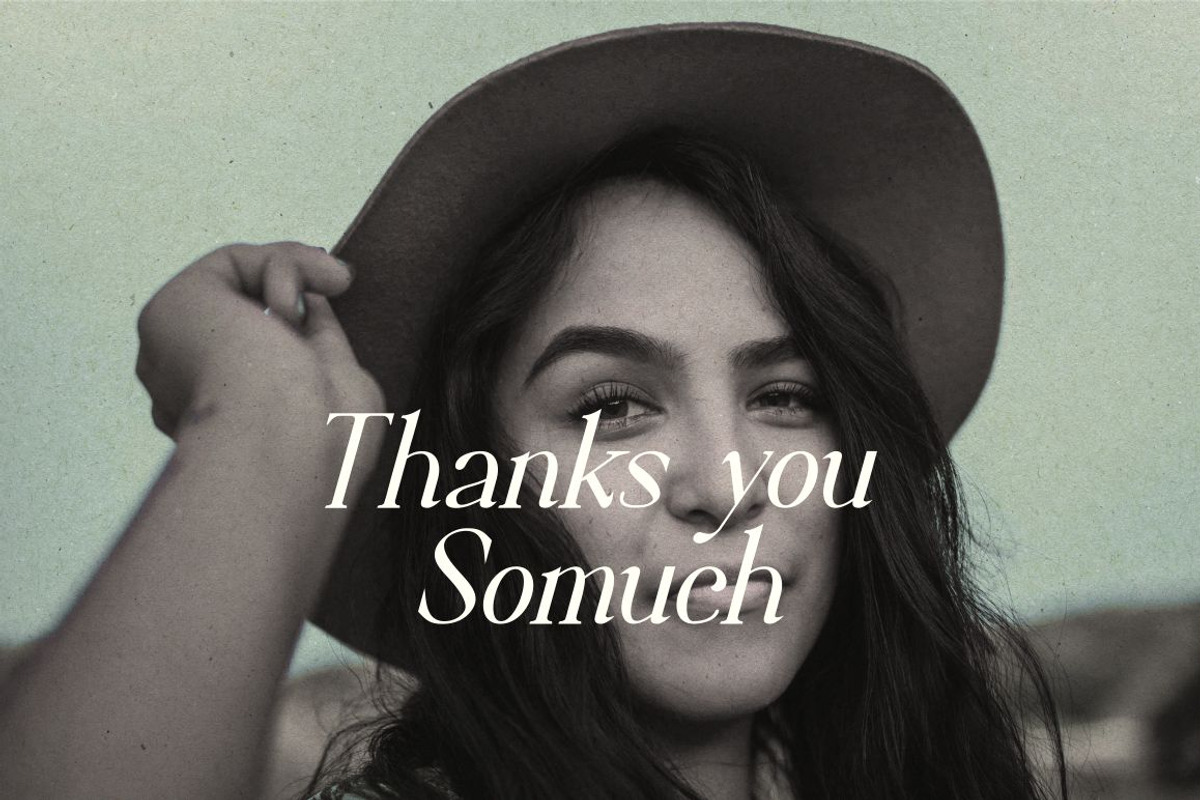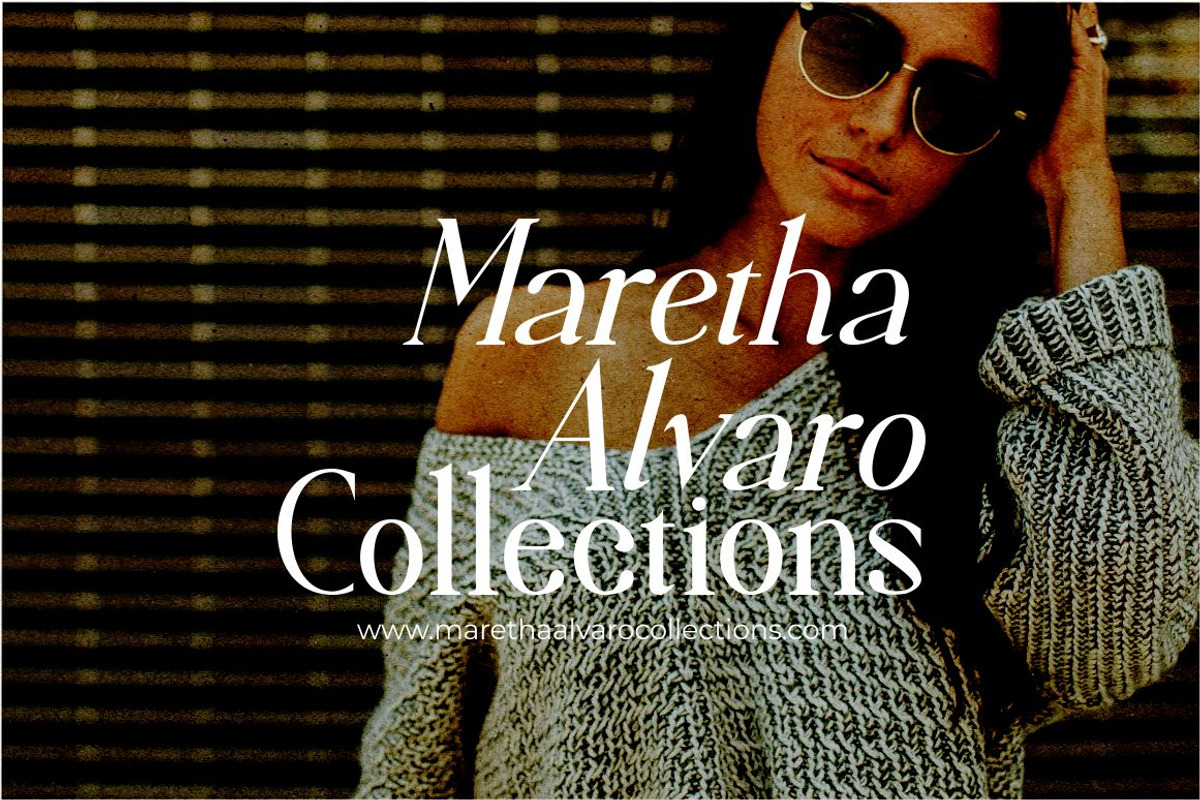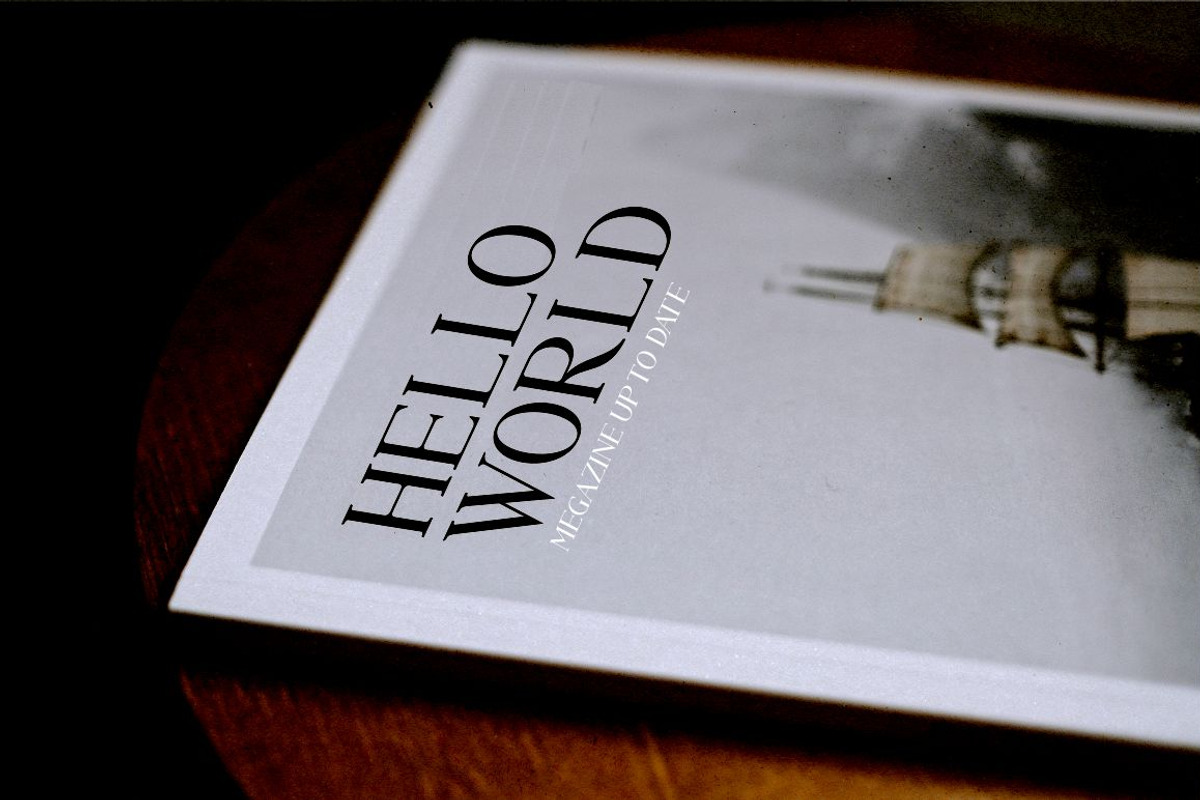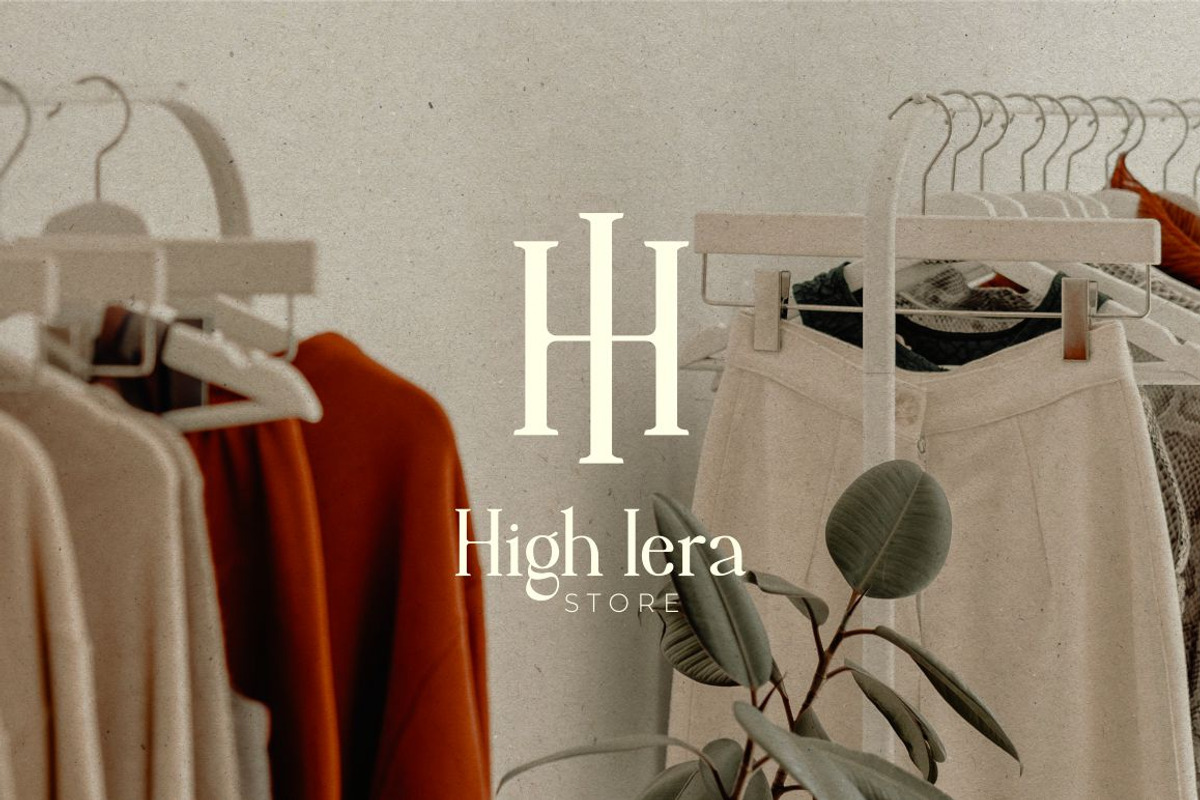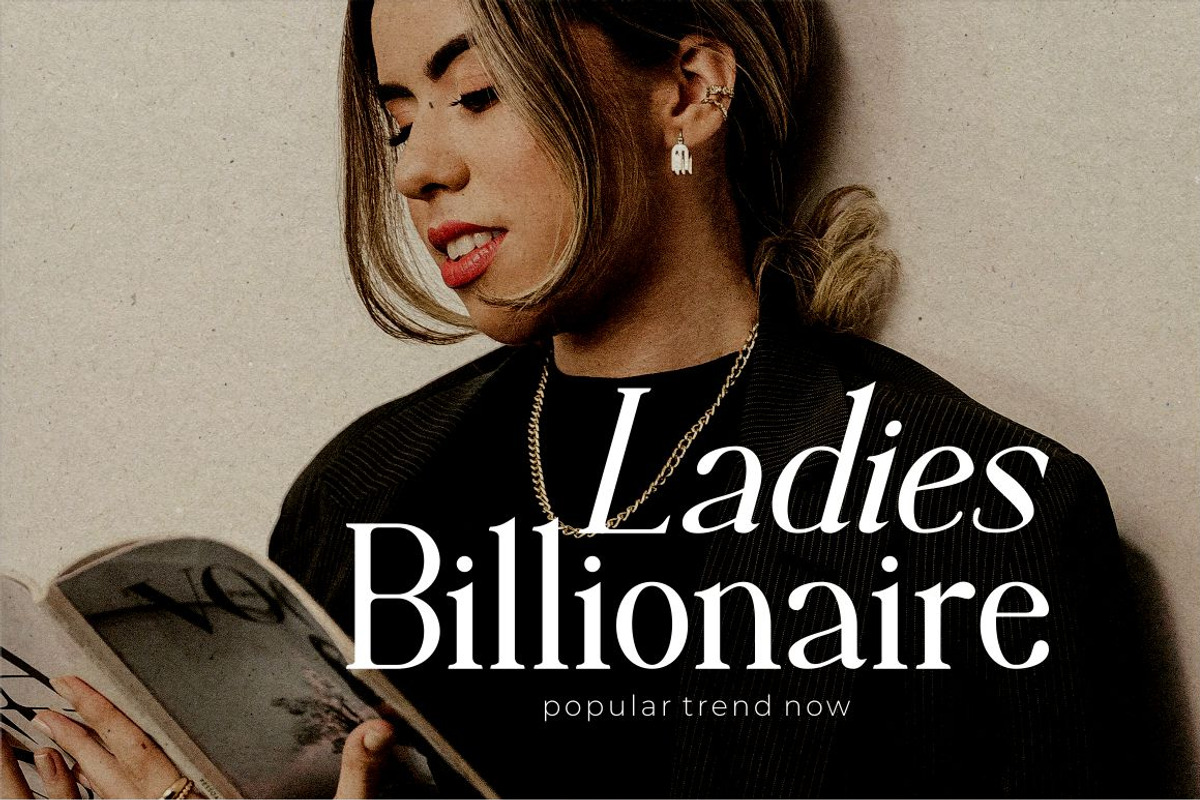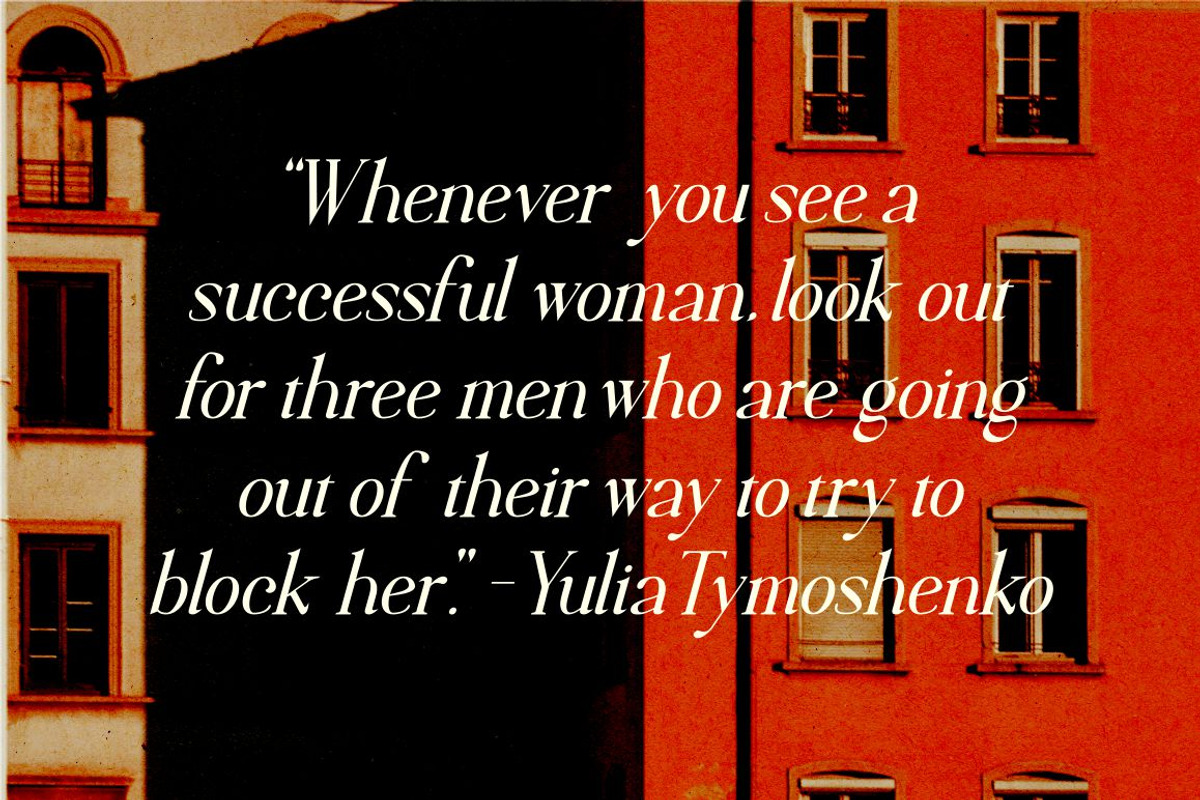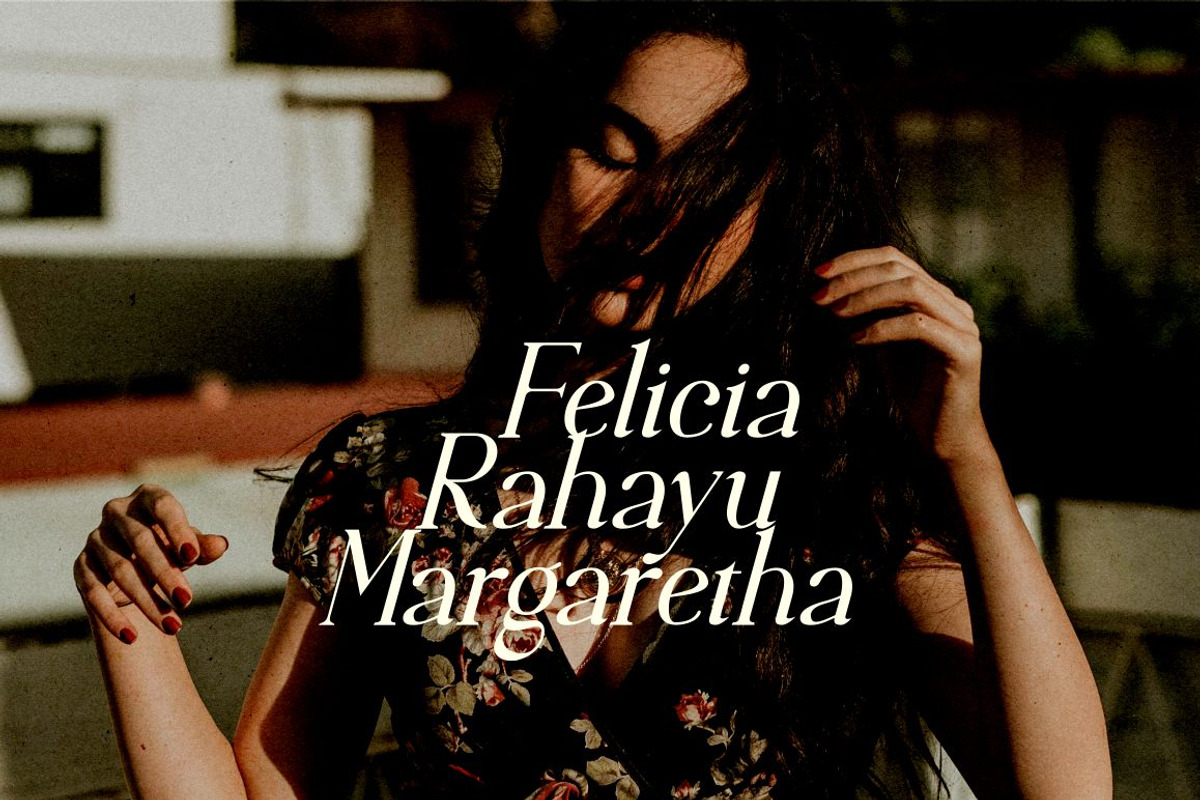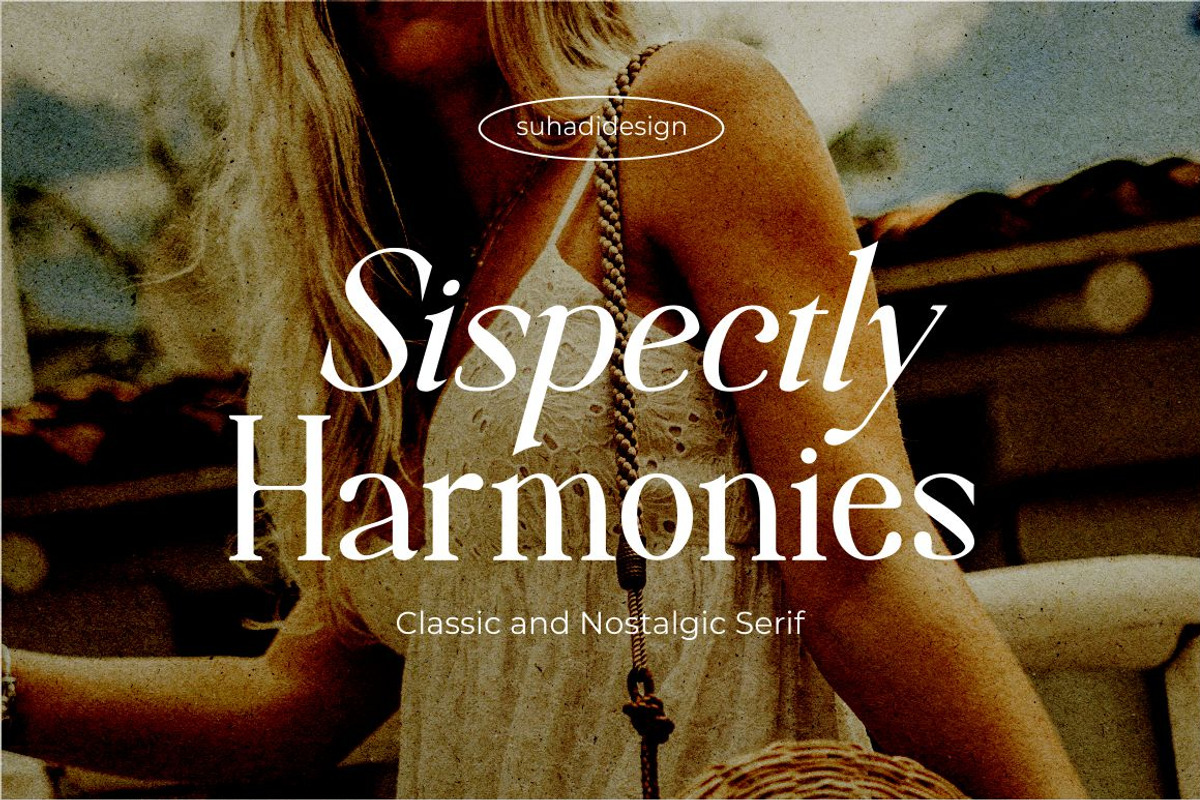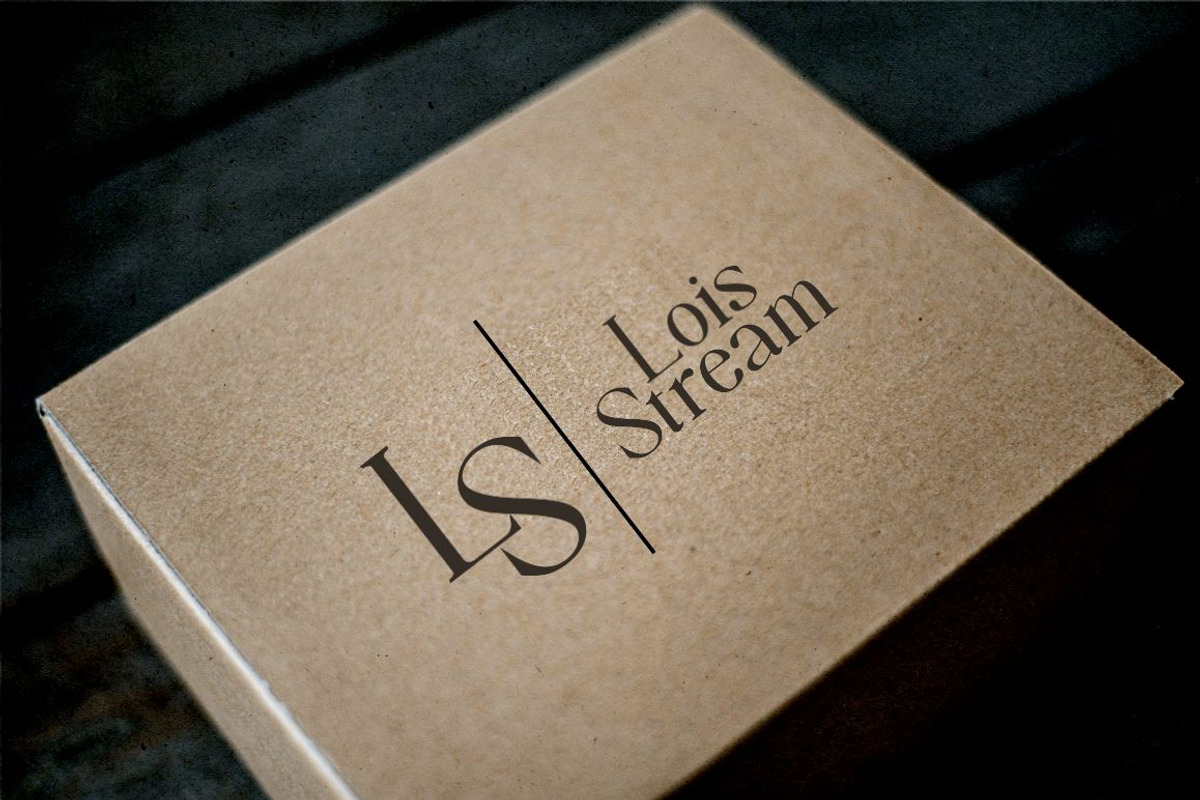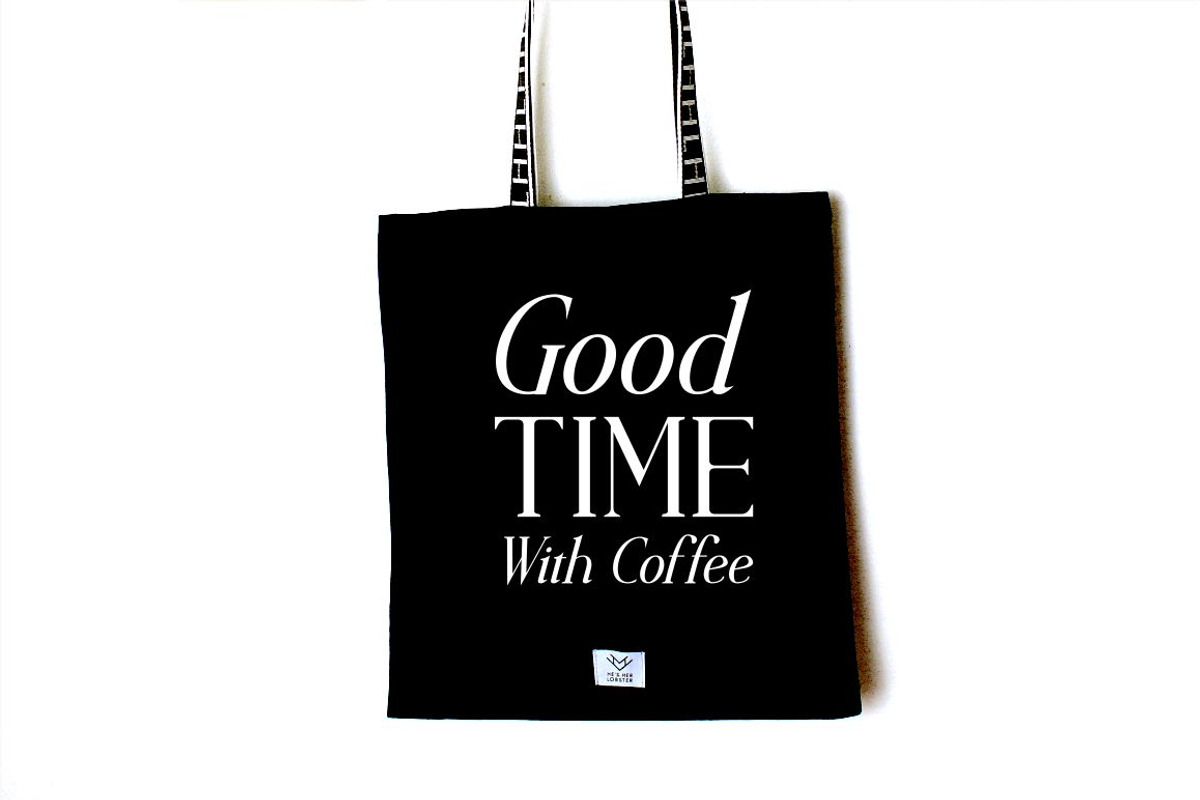
Sispectly Harmonies Nostalgic Serif
Sispectly Harmonies classic and nostalgic serif
Hi ladies and gentlemen! In accordance with market demand for classic retro design fonts, I created a serif font that suits your views. The Sispectly Harmonies font is a classic nostalgic serif font. is here to become a market favorite. We made this font look elegant, classy, easy to read, stylish, attractive and easy to use. Sispectly Harmonies Font is a great choice for retro designs, logos, magazines, classic, classy designs, newspapers, modern, books, brand names, branding, and other projects. The Sispectly Harmonies font is here to enhance the quality of your designs.
Feature:
• Uppercase • Lowercase • Regular version • Italicized version • Multilingual Support • Numbers and punctuation